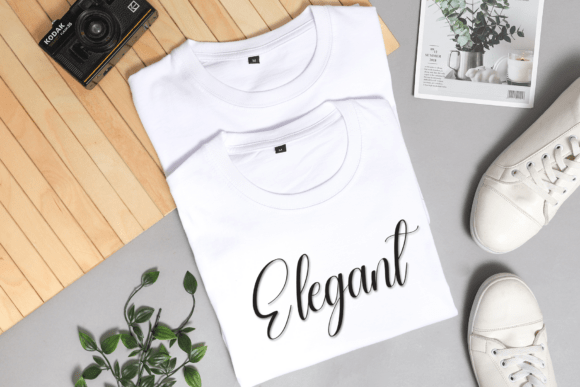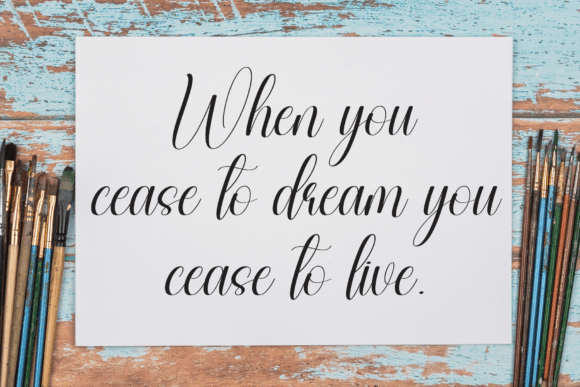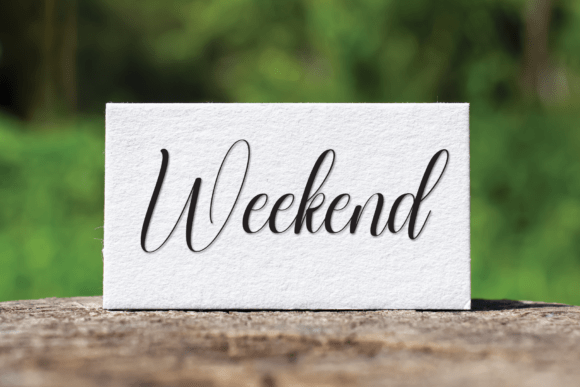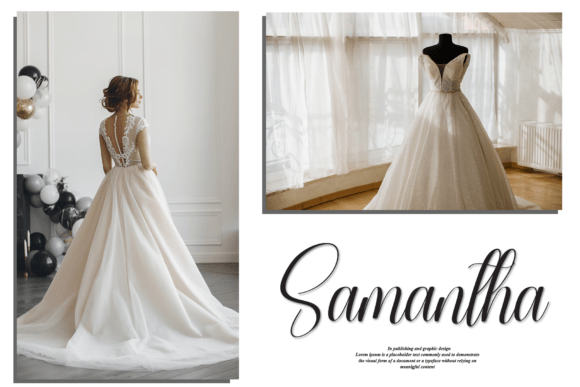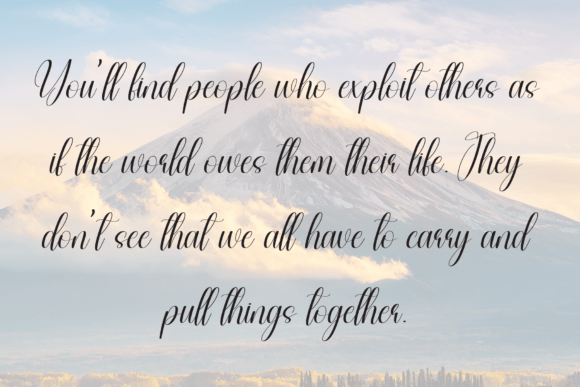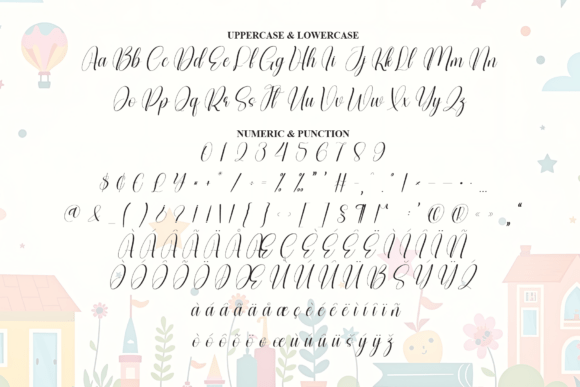
Introduction to Simple Kindergarten Font
As designers, we’ve all been there – staring at a blank page, trying to bring a creative project to life. The cursor blinks, and our minds go blank. But sometimes, all it takes is the right font to spark inspiration. For me, it was the discovery of the Simple Kindergarten Font, a charming and elegant script font that has become a go-to design resource.
What sets Simple Kindergarten Font apart is its versatility and high-quality design. Whether you’re creating wedding stationery, sophisticated branding, or personal letters, this font is a great choice. Its gentle swashes and graceful connections make it effortlessly charming and refined, perfect for adding a touch of elegance to any design.
Key Features of Simple Kindergarten Font
- Designed with simplicity in mind, making it perfect for kindergarten-themed projects, educational materials, and children’s books.
- Includes a range of characters, including uppercase and lowercase letters, numbers, and punctuation marks, to support various language needs.
- Features a clean and playful design, ideal for creating engaging and fun content for children, from educational materials to marketing campaigns.
Honest Review: Simple Kindergarten Font
I recently stumbled upon the Simple Kindergarten Font, and I must say, it’s a gem. The font is designed to be playful, yet easy to read, making it perfect for any creative project that requires a touch of whimsy.
However, there are a few limitations to consider: ⚠️ The font may not be suitable for formal or professional projects, as it can come across as a bit too playful. ⚠️ The font family is relatively small, with only a few styles to choose from.
Overall, I’m impressed with the Simple Kindergarten Font. It’s a great design resource for any creative project that requires a touch of fun and playfulness.
- Perfect for children’s books, educational materials, and other creative projects
- May not be suitable for formal or professional projects
- Relatively small font family
The Simple Kindergarten Font is ideal for educational projects, children’s books, and other creative endeavors. Its high-quality design and transparent background feature make it a versatile design resource for various applications.